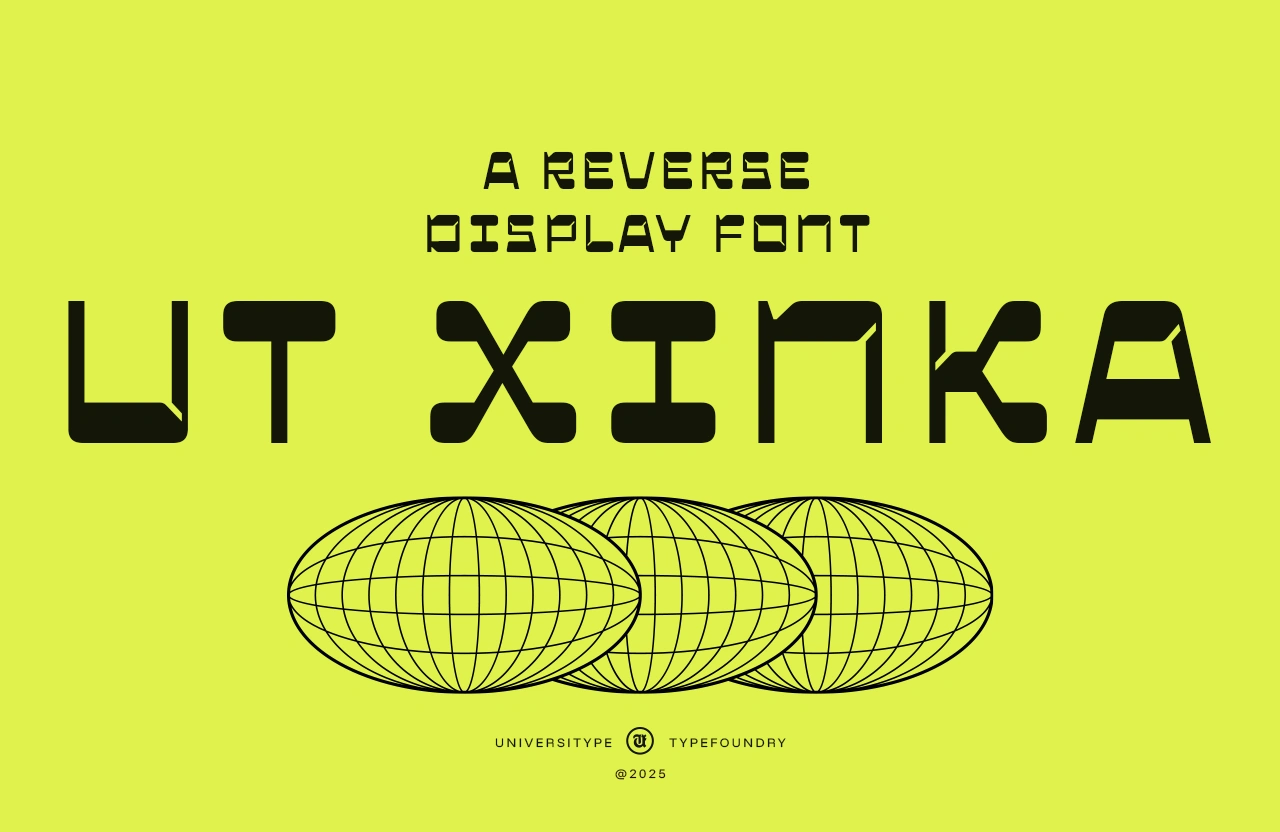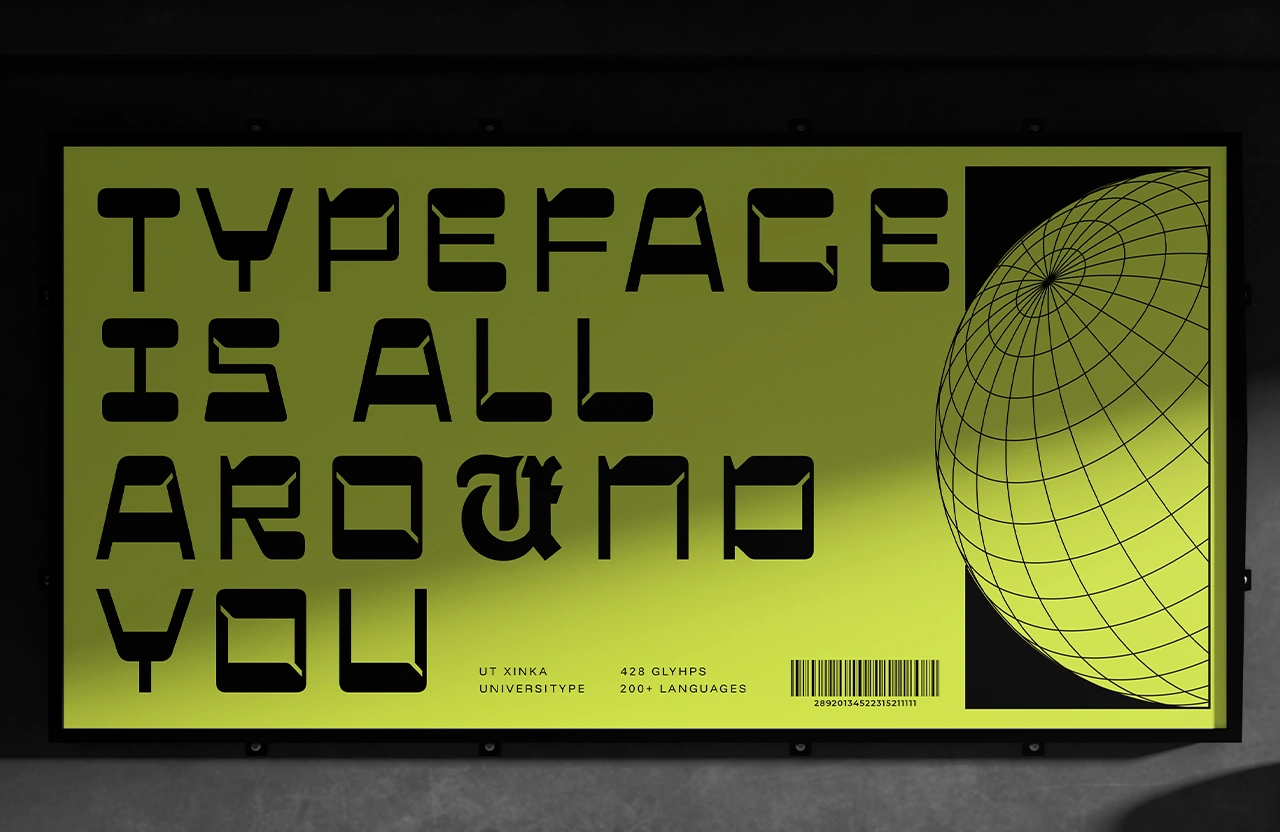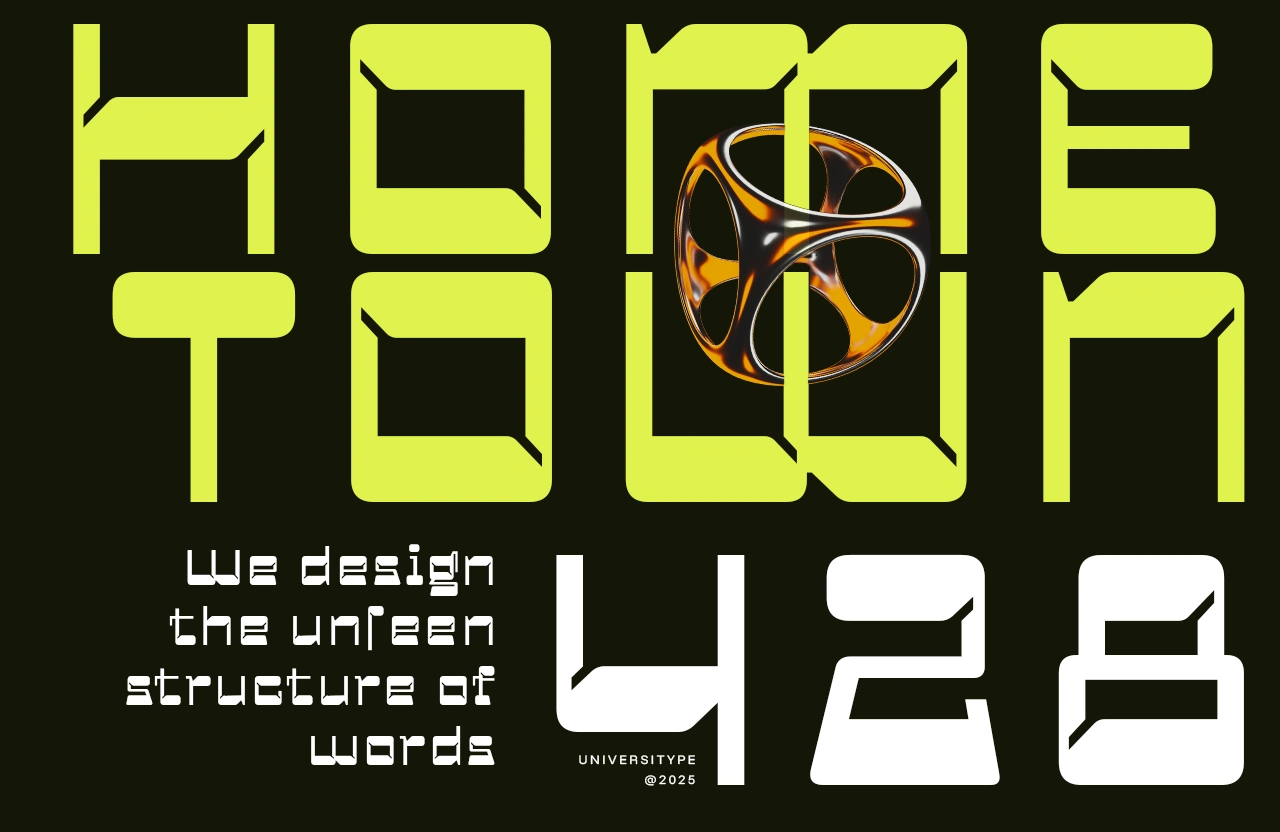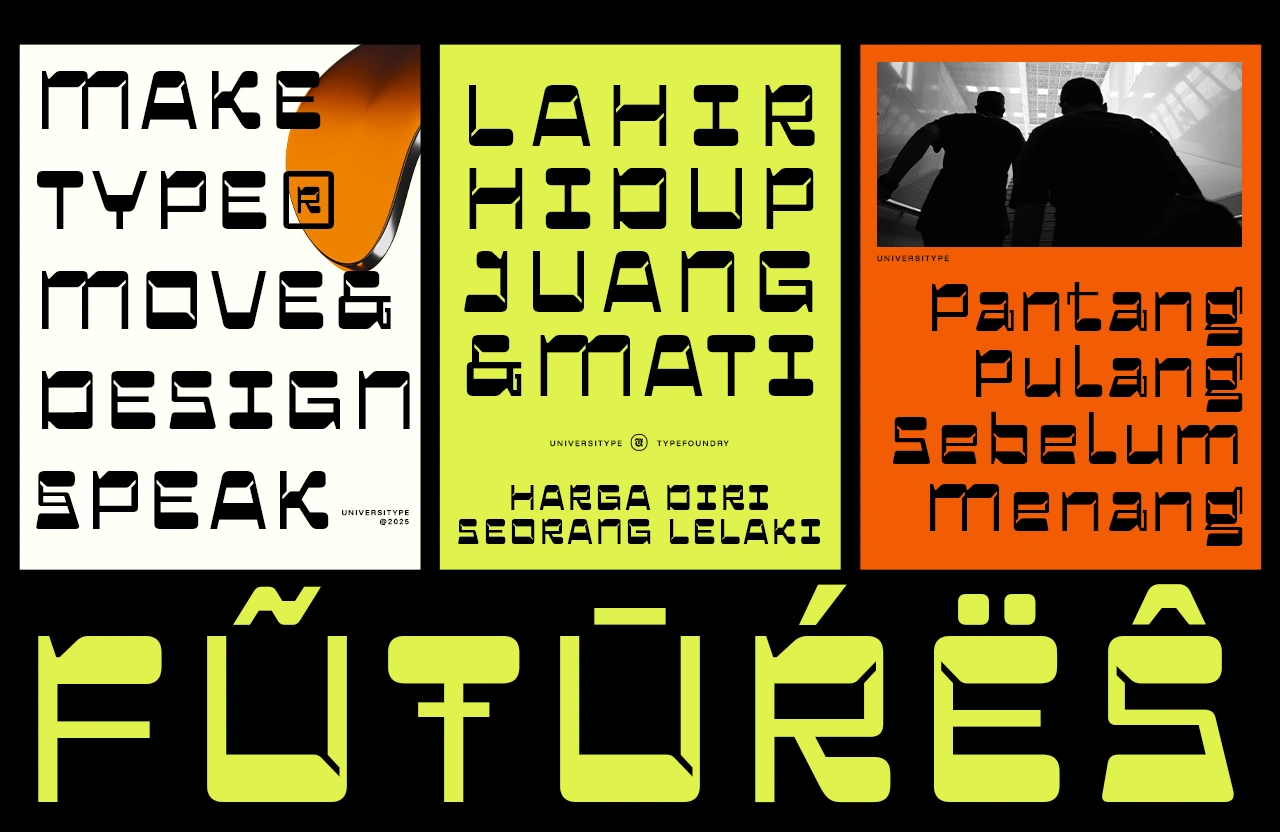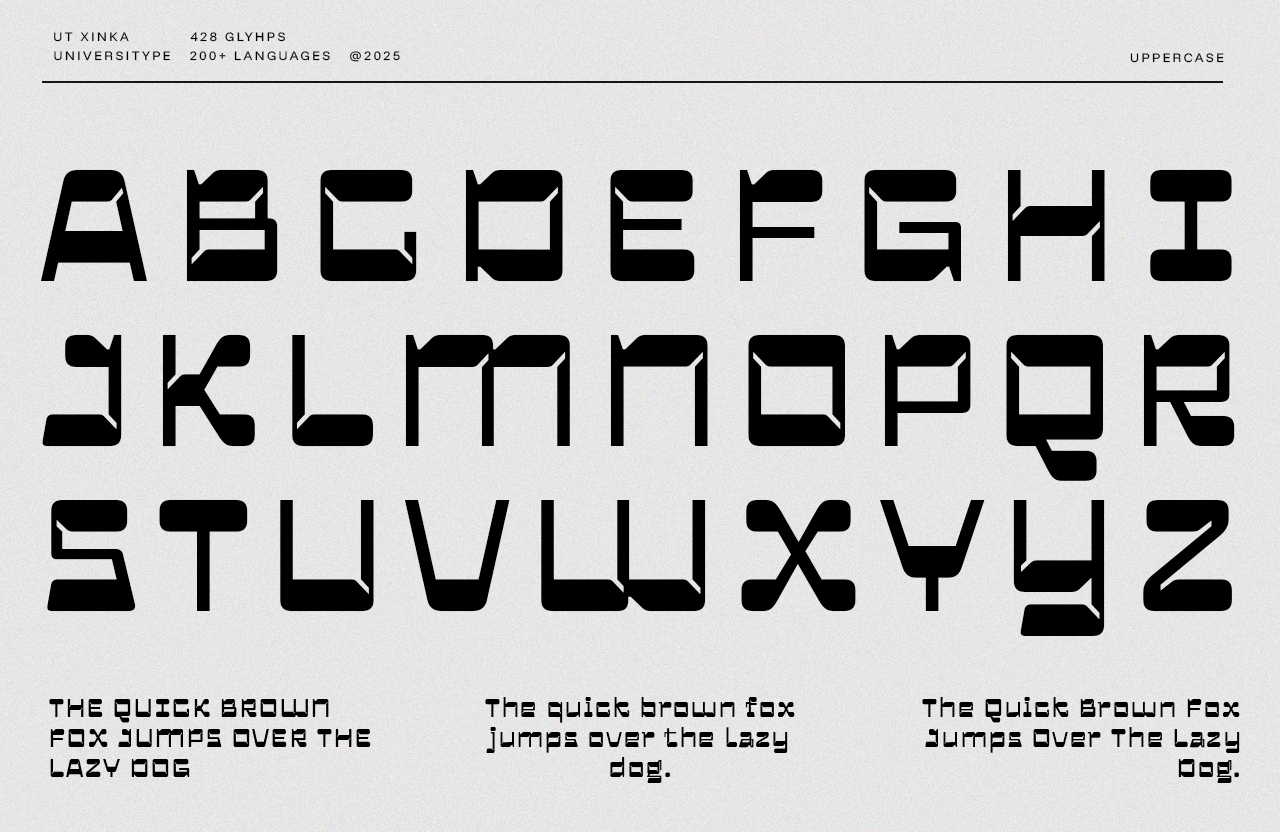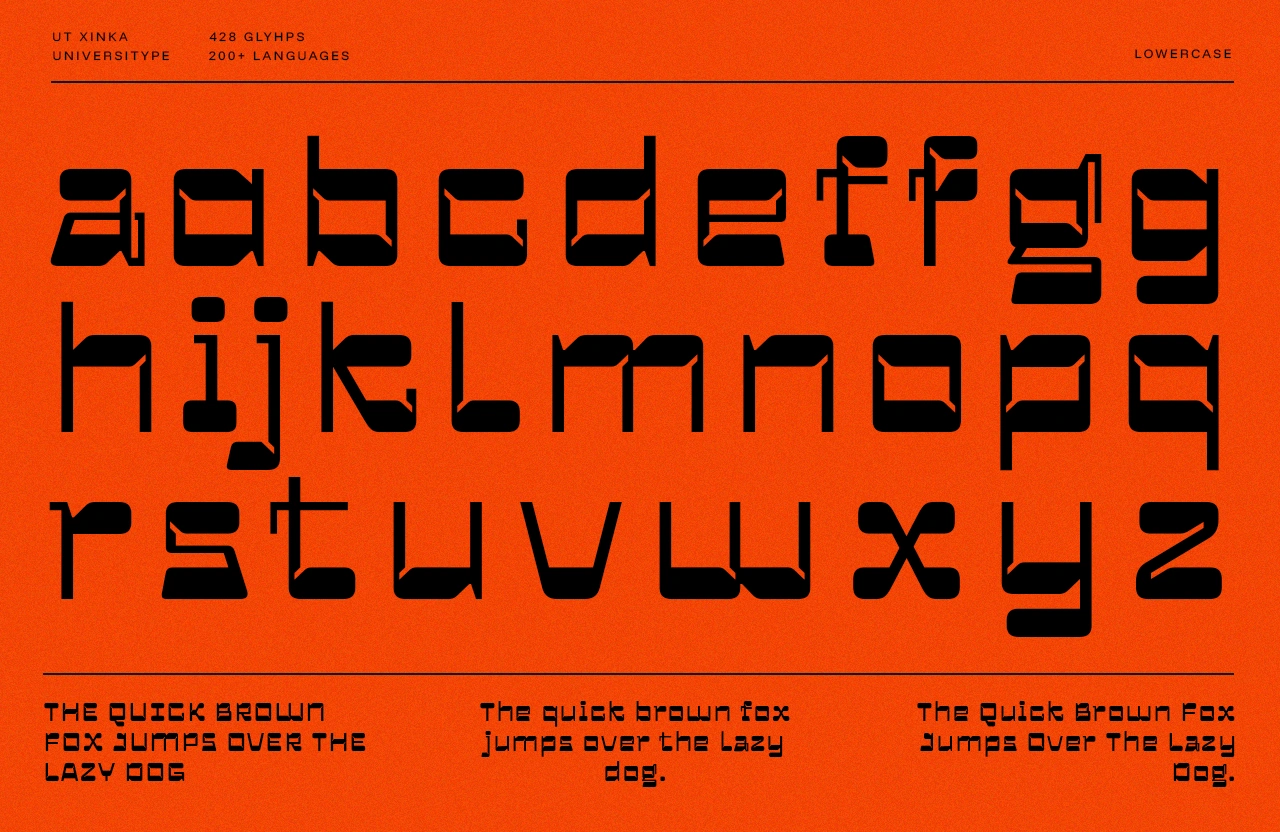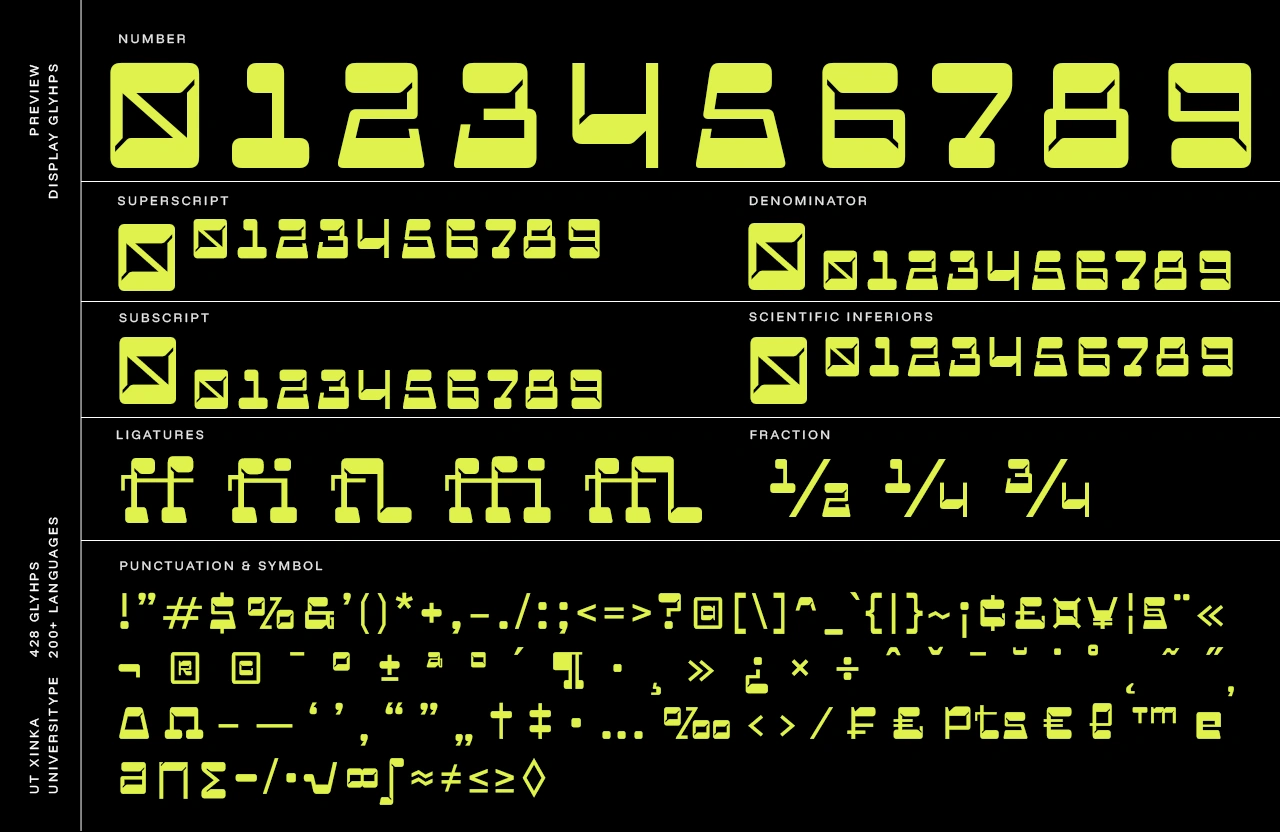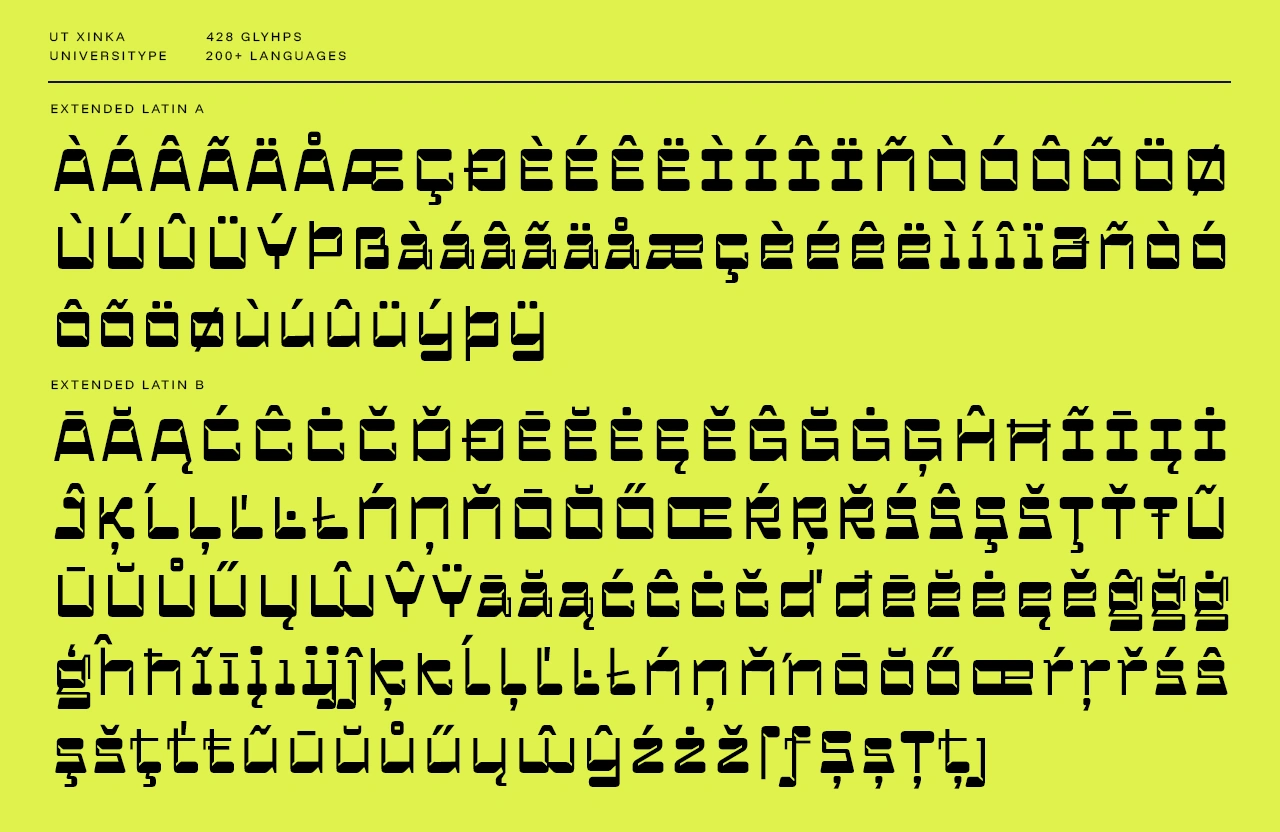
UT Xinka
UT Xinka brings a quirky, futuristic twist to the grid-based world of reverse-contrast display fonts. Every stroke feels intentional: chunky forms, unexpected angle cuts, and a rhythm that turns even simple words into bold visual statements.
UT Xinka — A Reverse-Contrast Display Font
UT Xinka brings a quirky, futuristic twist to the grid-based world of reverse-contrast display fonts. Every stroke feels intentional: chunky forms, unexpected angle cuts, and a rhythm that turns even simple words into bold visual statements. It has that playful–tech attitude that instantly grabs attention without trying too hard.
With 300+ glyphs and a fresh set of stylistic alternates, UT Xinka gives you room to experiment, break patterns, and build character-driven typography for brands that love standing out. Think of it as a shape-shifting font that loves being pushed.
Target Audience
This typeface speaks directly to:
• Designers building futuristic, experimental, or tech-forward visuals
• Creative studios hunting for a standout display font
• Streetwear labels, gaming brands, music events, and digital creators
• Anyone who enjoys structured chaos in typography
Key Features
• 300+ glyphs covering extended Latin
• 10+ stylistic alternates for expressive lettering
• Unique reverse-contrast construction
• Ligatures that elevate rhythm and visual flow
• Complete numeral system: superscript, subscript, scientific, fractions
• Sharp angle cuts paired with soft shapes for a distinctive silhouette
• Works beautifully in both oversized and micro display settings
Inspiration Behind the Design
UT Xinka started from a simple question: What happens when you flip traditional contrast and keep the structure rigid, yet playful?
The result pulls from retro tech shapes, modular signage, and a hint of sci-fi industrial design. The angled cuts mimic hidden connectors—like the unseen structure behind machines—while the rounded endings soften the whole vibe, keeping it friendly even in bold settings.
Usage Suggestions
UT Xinka shines in:
• Posters and large headlines
• Branding for tech, entertainment, and lifestyle products
• Album covers, gaming interfaces, UI titles
• Merch, apparel, and packaging
• Experimental layouts that need strong personality
Use it big, stretch it wide, stack it tall—this font loves unconventional layouts.